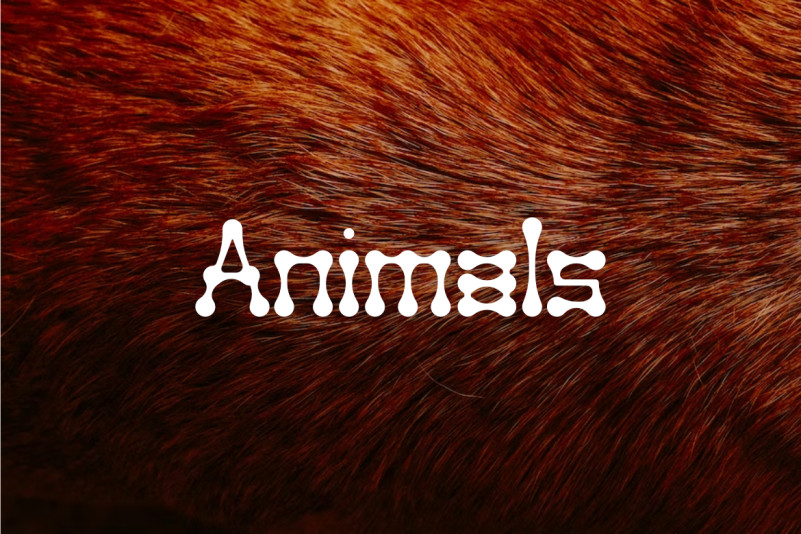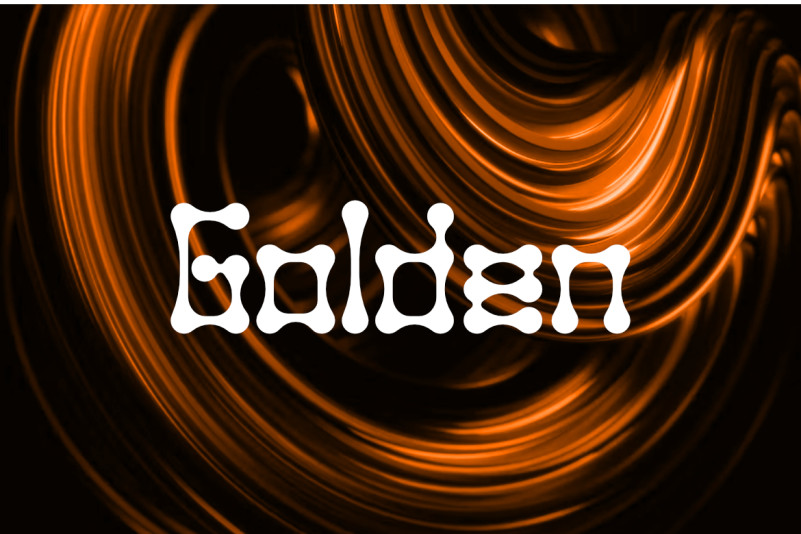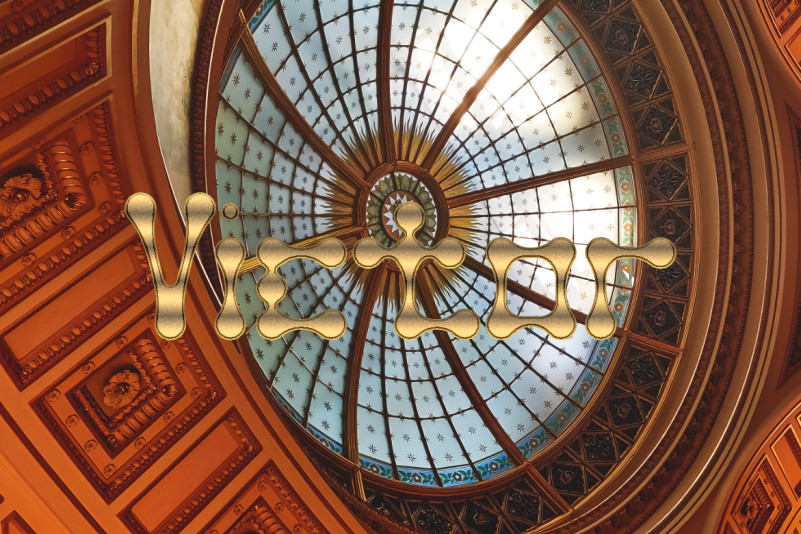
Sragera Font
Sragera Display Font. It can easily be matched to an incredibly large set of projects, so add it to your creative ideas and notice how it makes them stand out!
sragera is joyful with abstract characters